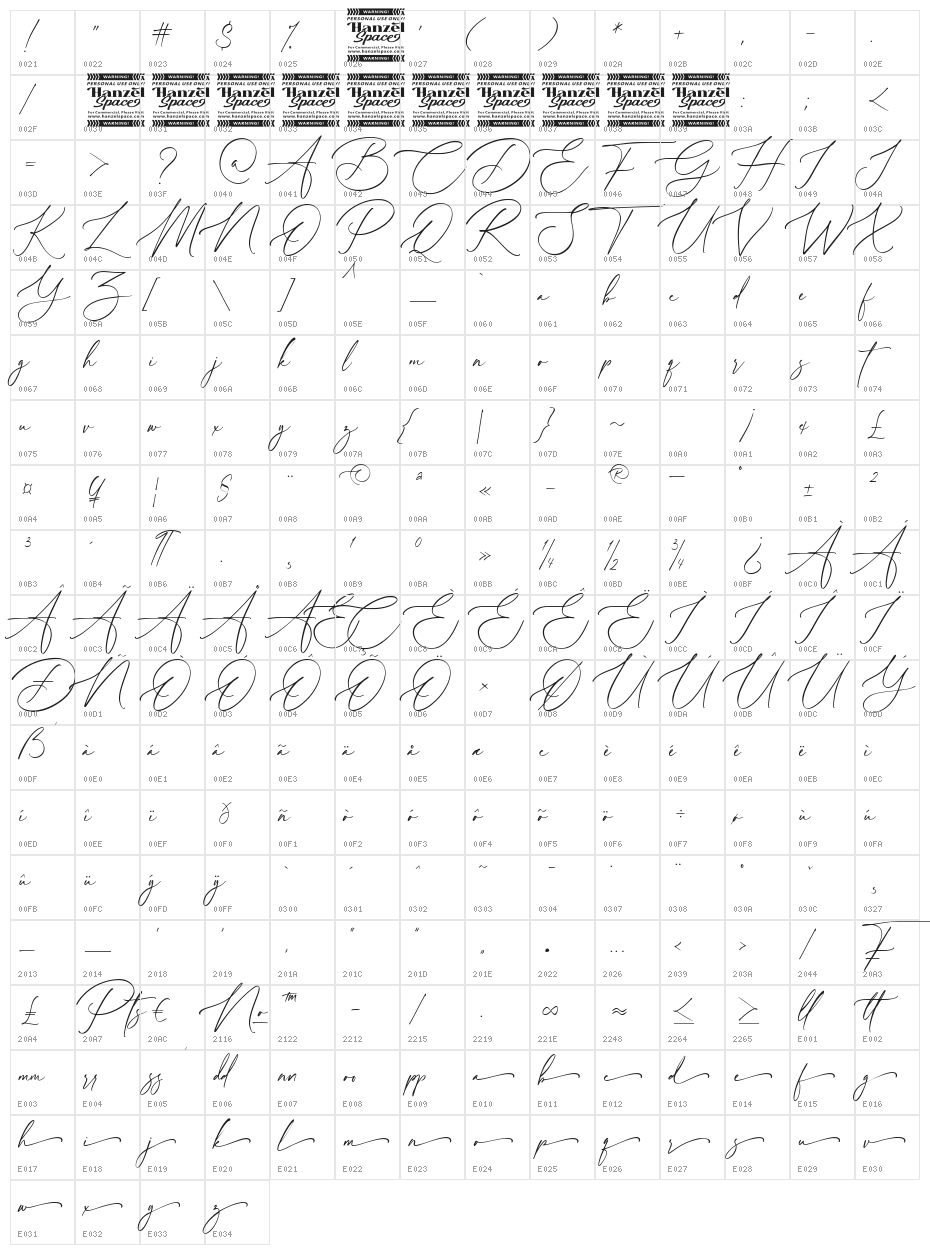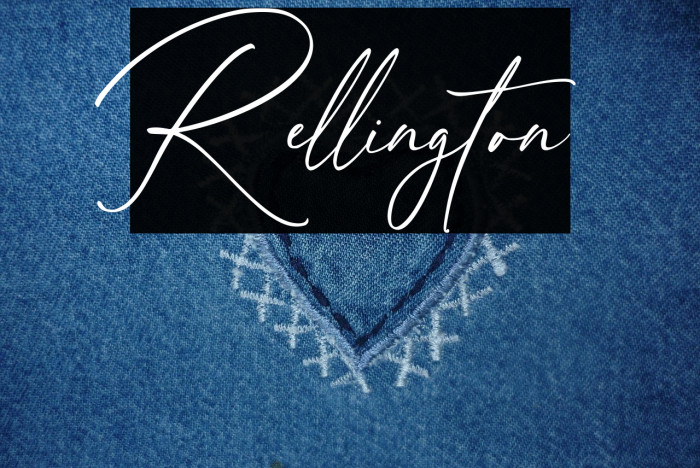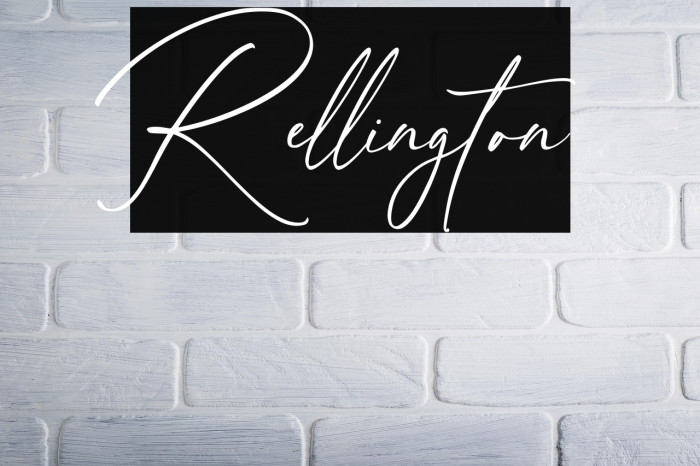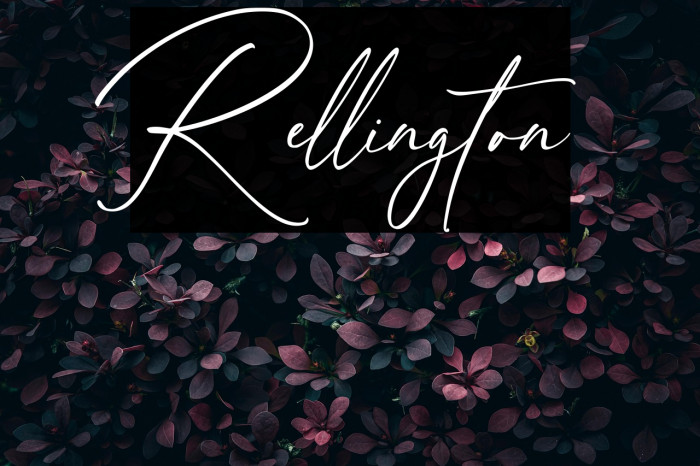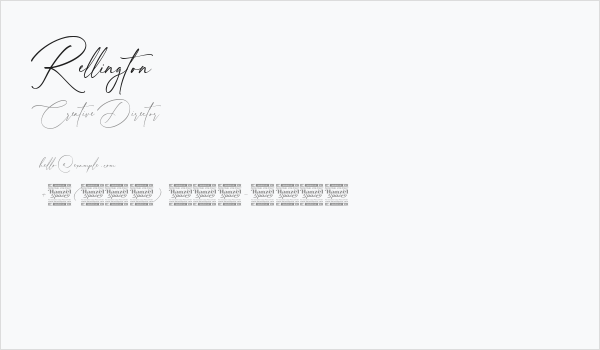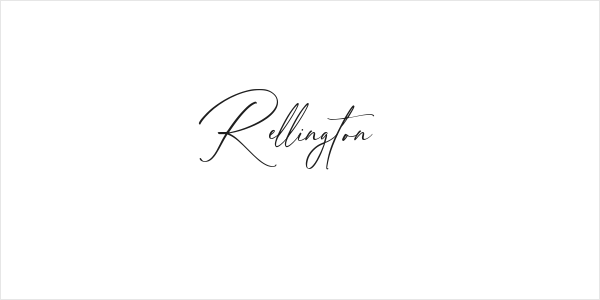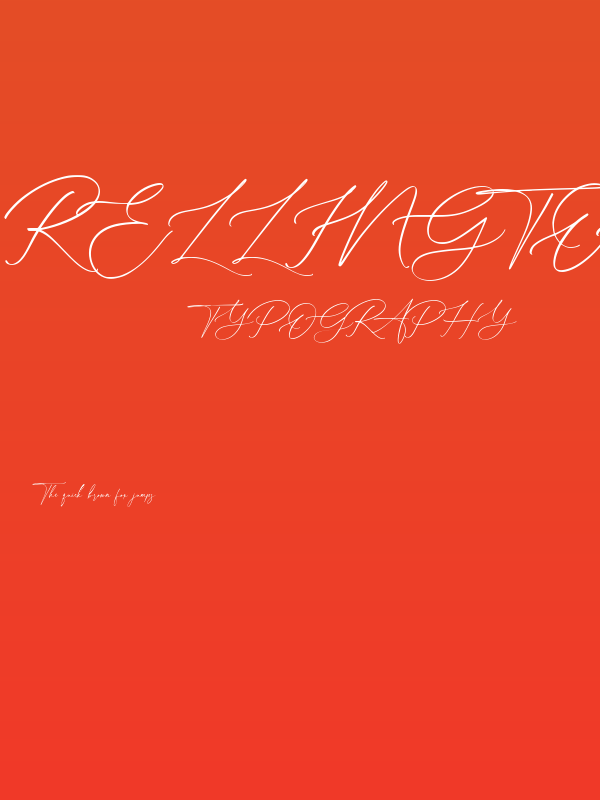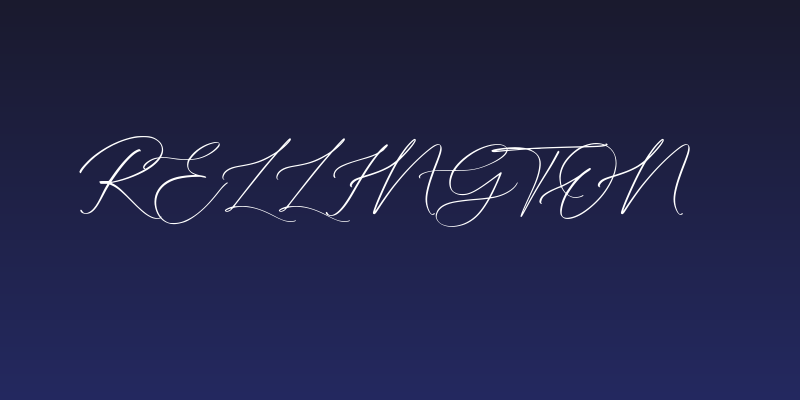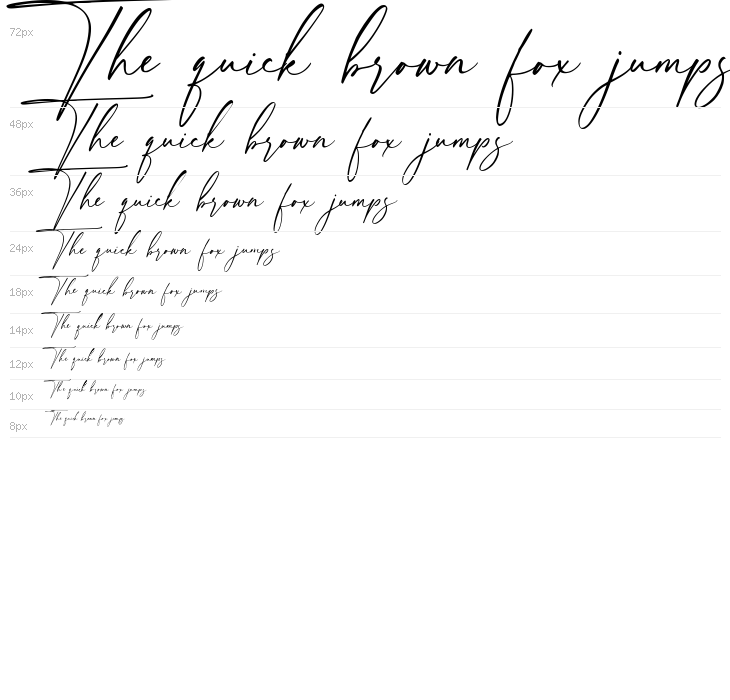
Rellington Font
Rellington Description
A flowing, elegant script font with a handwritten style, featuring smooth curves and connected letters.
| Use Case | Logos, Invitations |
| Proposed Projects | Invitations, greeting cards, branding. |